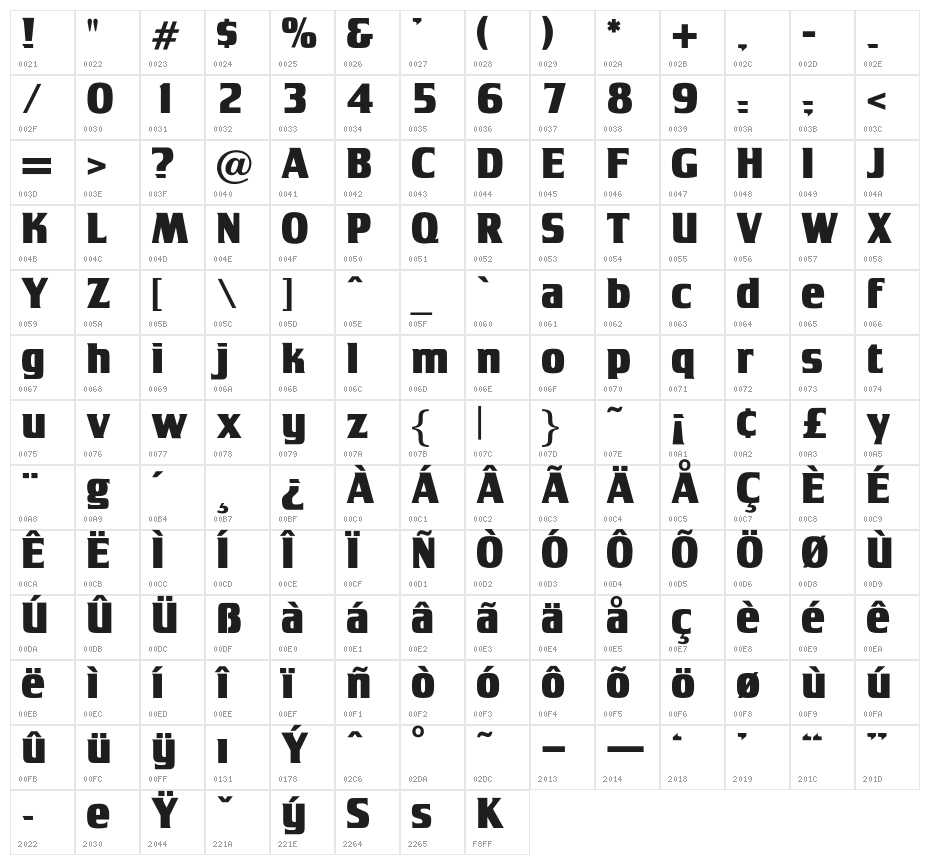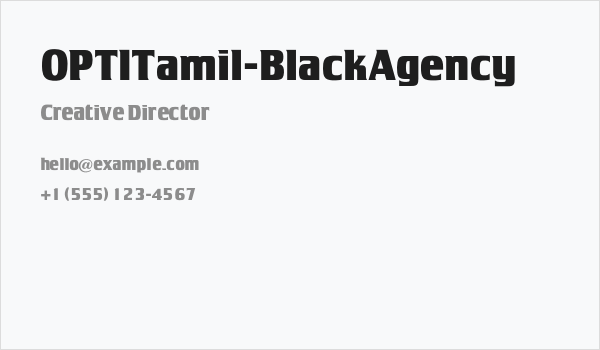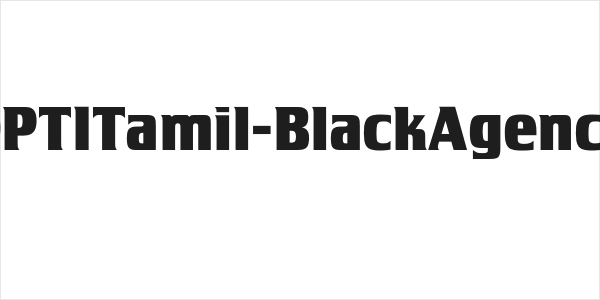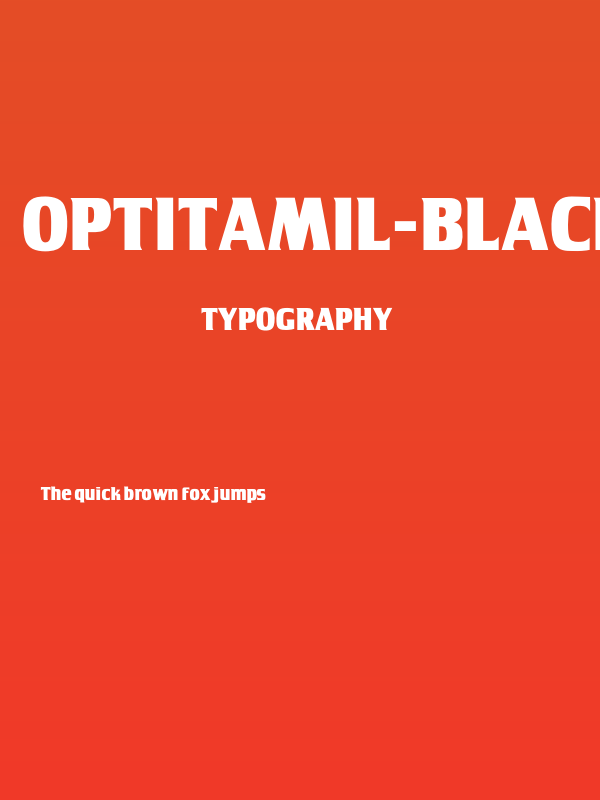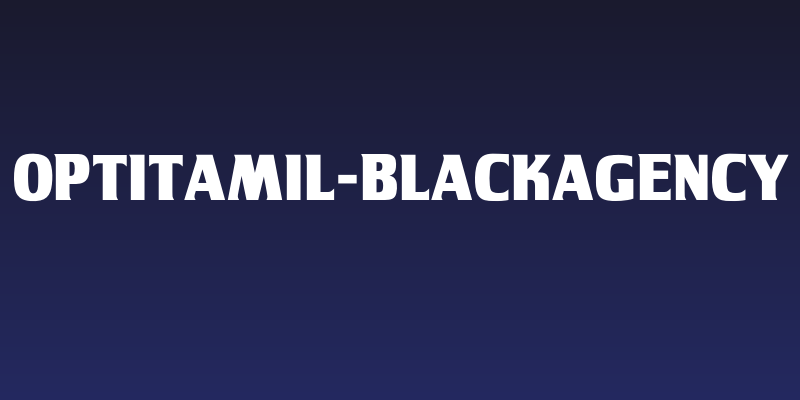
OPTITamil-BlackAgency Font
OPTITamil-BlackAgency Description
This font features a bold and assertive style with thick, uniform strokes that convey strength and stability. The characters are well-defined with a slightly condensed appearance, making them ideal for impactful headlines and titles. The uppercase and lowercase letters maintain a consistent weight, providing a cohesive look across different text sizes. The numerals are clear and robust, ensuring readability in various contexts. Special characters are designed with the same boldness, integrating seamlessly with the overall aesthetic.
| Proposed Projects | Ideal for branding, advertising, posters, and any project requiring a strong visual impact. |